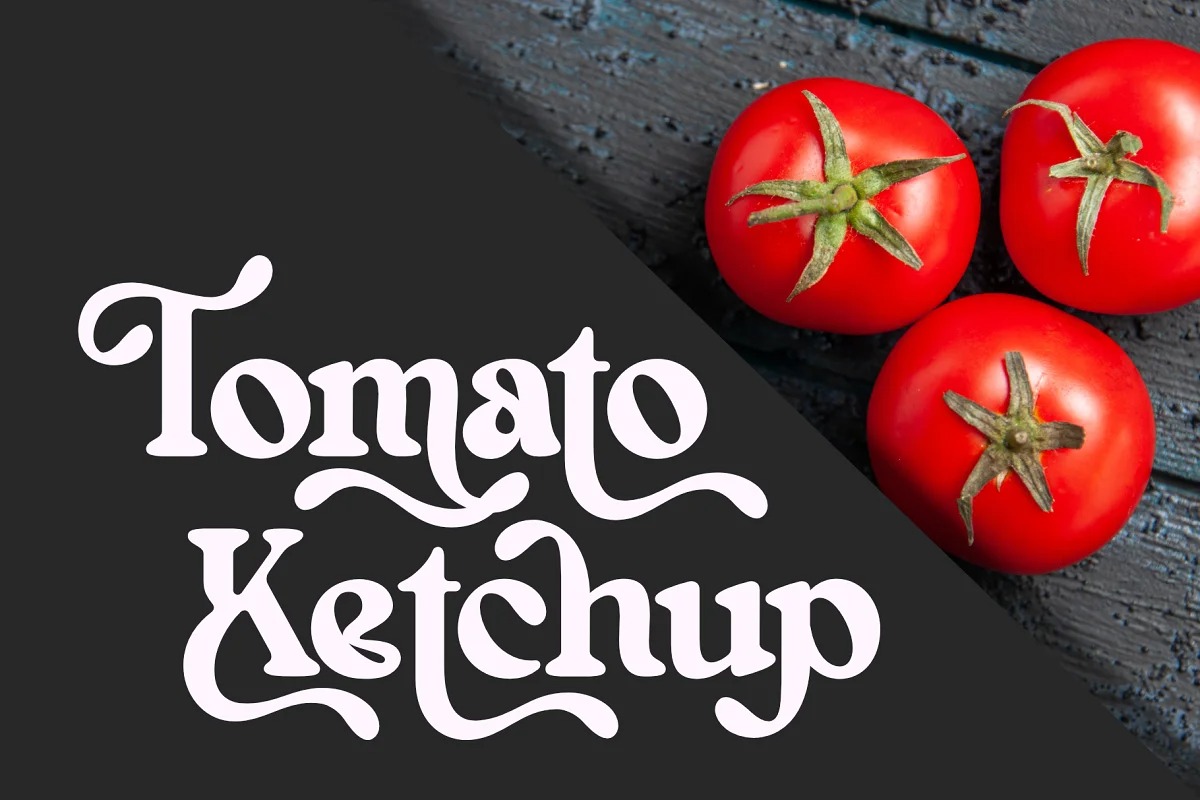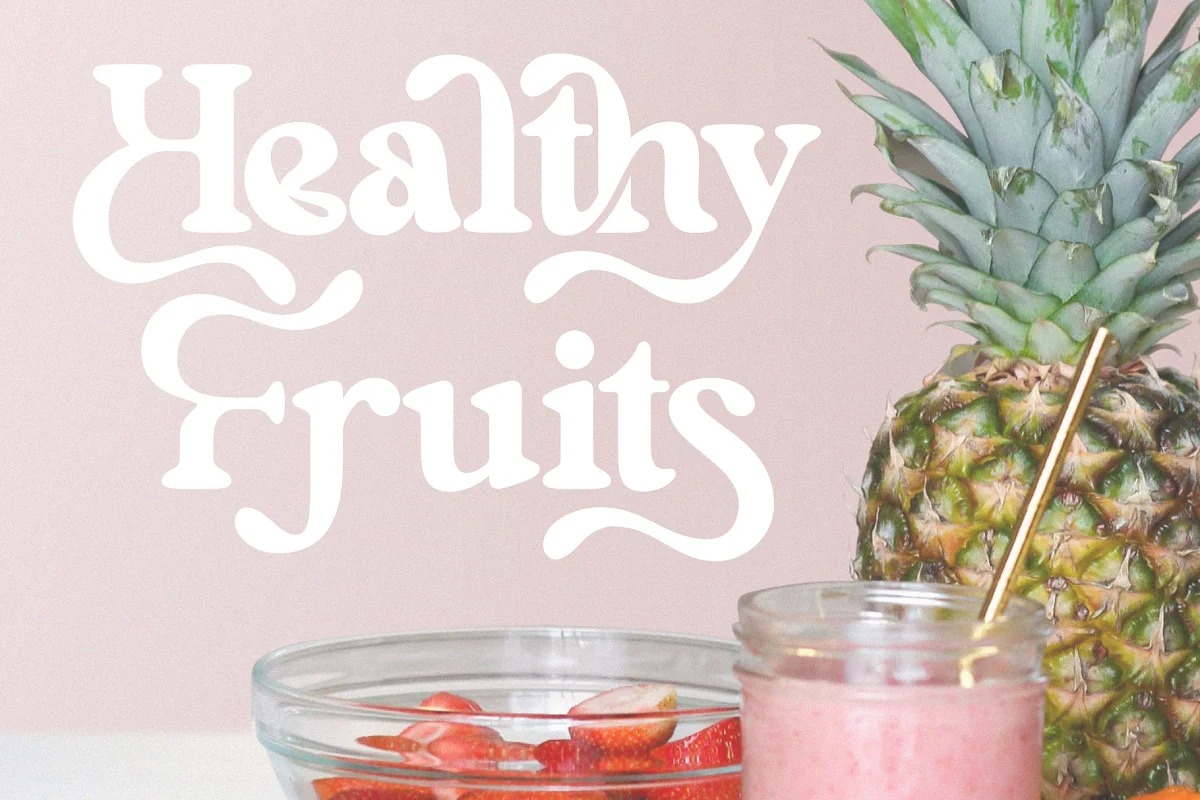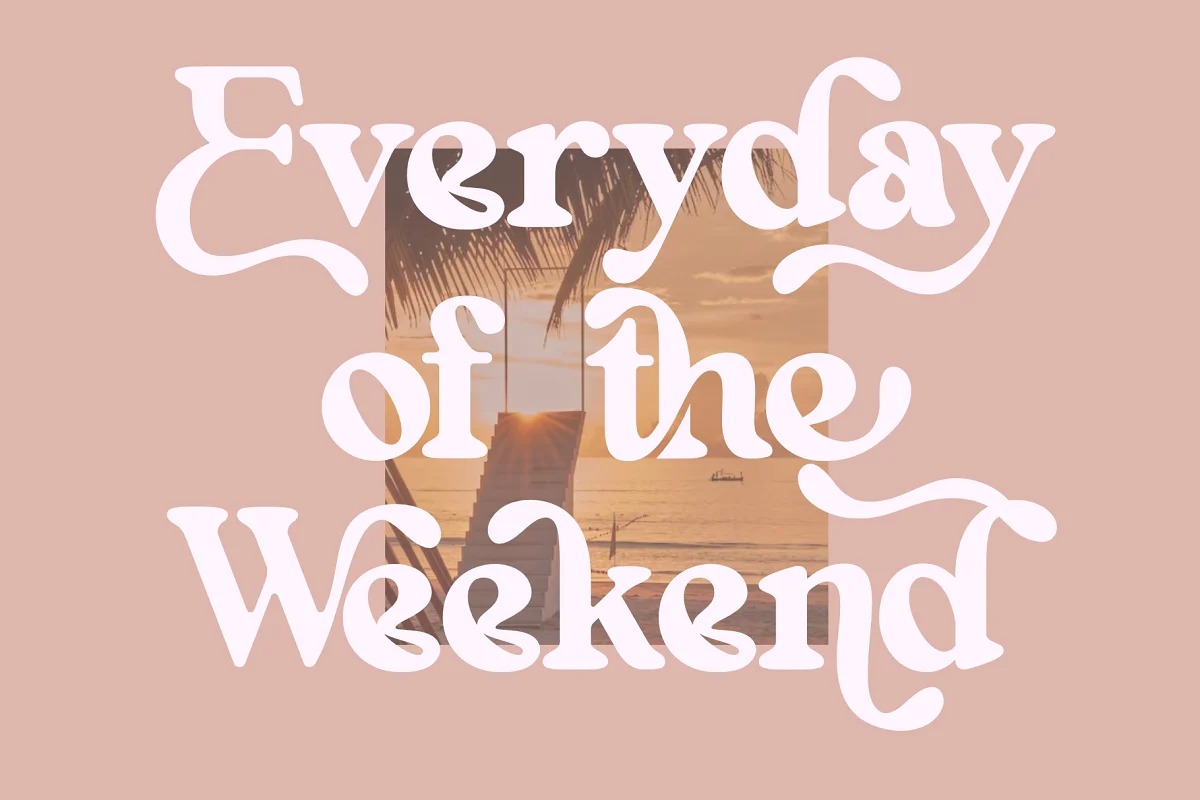
Neastone Font
Neastone Serif Font is a retro serif and bold display typeface manufactured by Sealoung. Made with many alternative characters to make it easier for you to do various design projects and give you fun while typing.
Neastone fits perfectly into those nostalgic moodboards and vintage logos. It come with a unique lower and uppercase plus numbers, punctuation & multilingual letters.